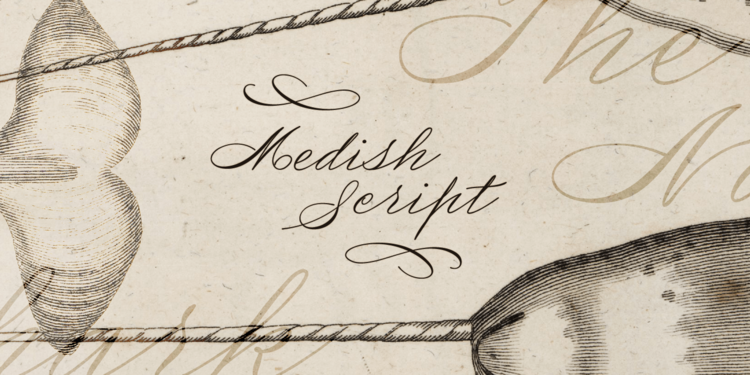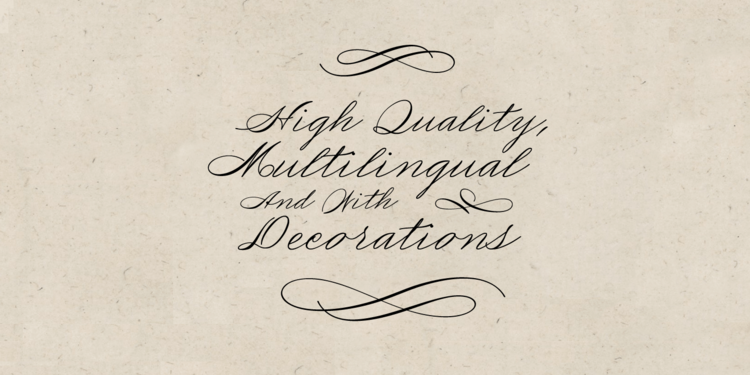
Medish Script Font
Medish Script is a classic handwritten script. Created by Måns Grebäck during 2018, this high-quality typeface has a genuine style based on antique lettering documents. It comes with an additional font, containing more than fifty decorative elements to be used with or without the writing. The font is multilingual; it supports hundred of languages, and got all necessary punctuation.